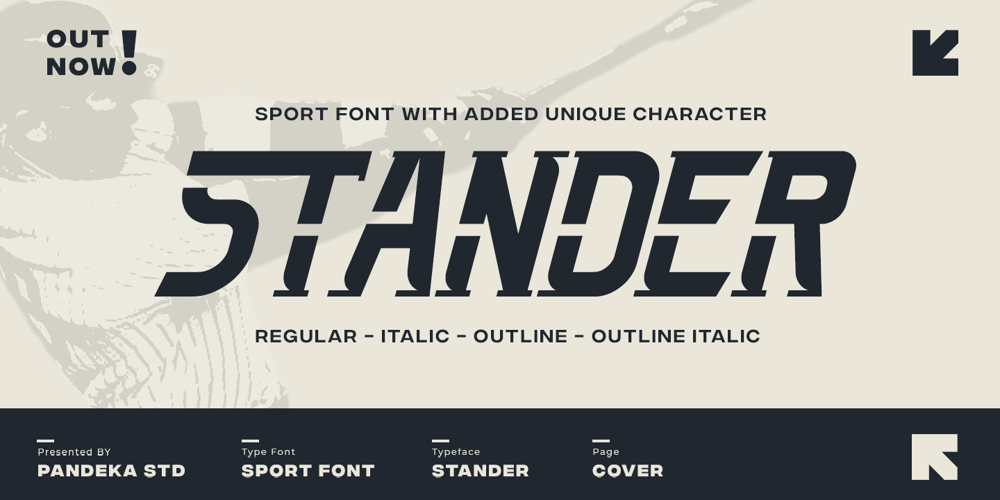
Stander
Stander font
Stander Font Family was designed by Sagara Nararya and published by Pandeka Studio. Stander contains 4 styles and family package options. Introducing Stander – the ultimate font for any sporting event, designed to capture the energy and excitement of outdoor sports. With three distinct styles: Regular, Italic, and Outline, Stander excels in high-speed situations while maintaining a contemporary tone, making it clear that your brand means business.Stander type family is athletic and dynamic, evoking the spirit of sport with new shapes inspired by historical trends and modern typography. Features include slab and display types, oblique styles, multiple ligatures, and style alternatives, ensuring Stander stands out and grabs attention.What’s you get? Stander Main Files Regular, Italic, and Outline Uppercase & Lowecase Letters Complete Special Alternates Unique letterforms Works on PC & Mac Numeral & Punctuation Multilingual Support Currencies Simple Installations Instructions (Access special characters in all apps, even in Cricut Design) Accessible in the Adobe Illustrator, Adobe Photoshop, Microsoft Word even work on Canva PUA Encoded Characters Fully accessible without additional design software. Feel free to follow, like and share. Thanks so much for checking out my shop!Have a great day!Pandeka Studio